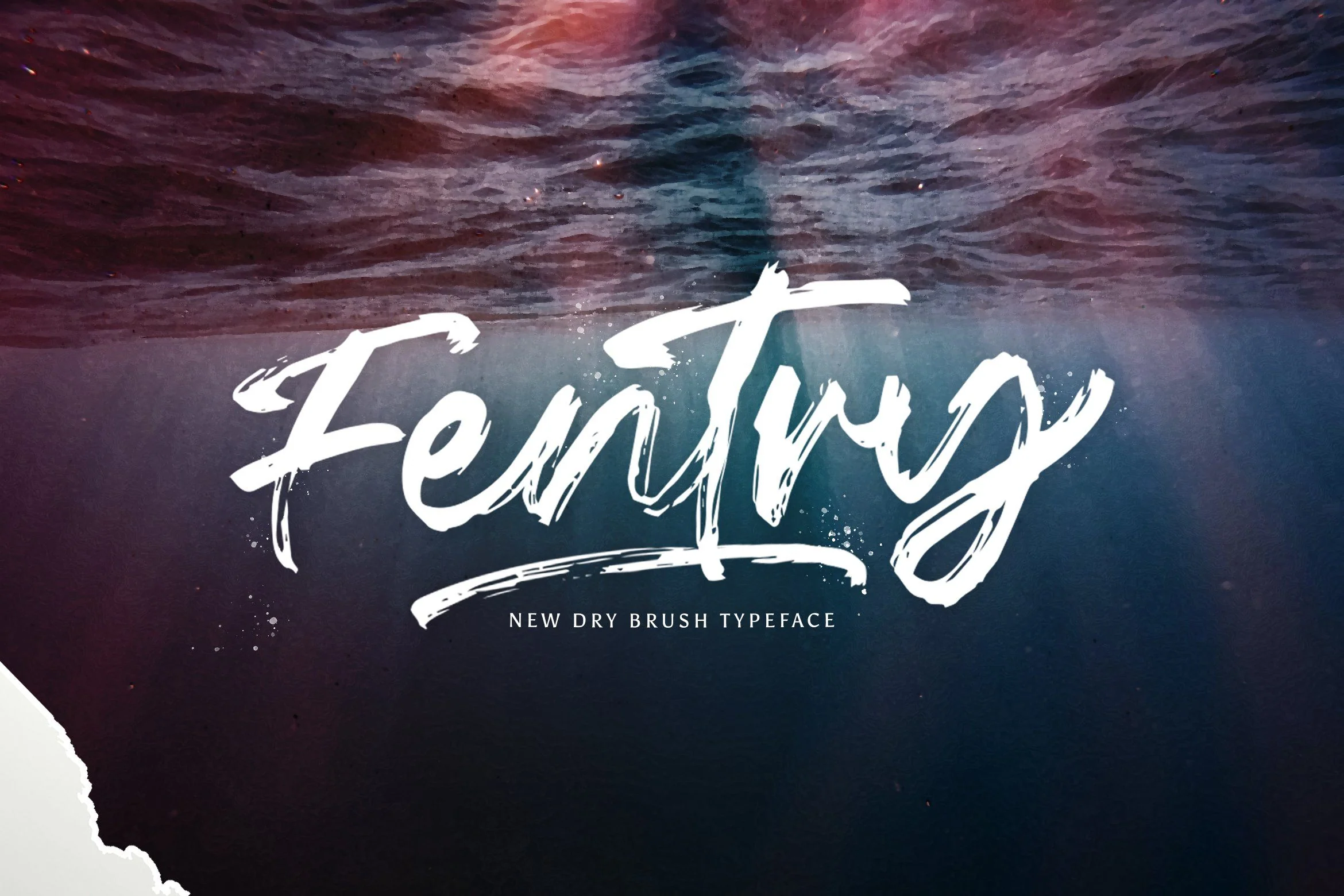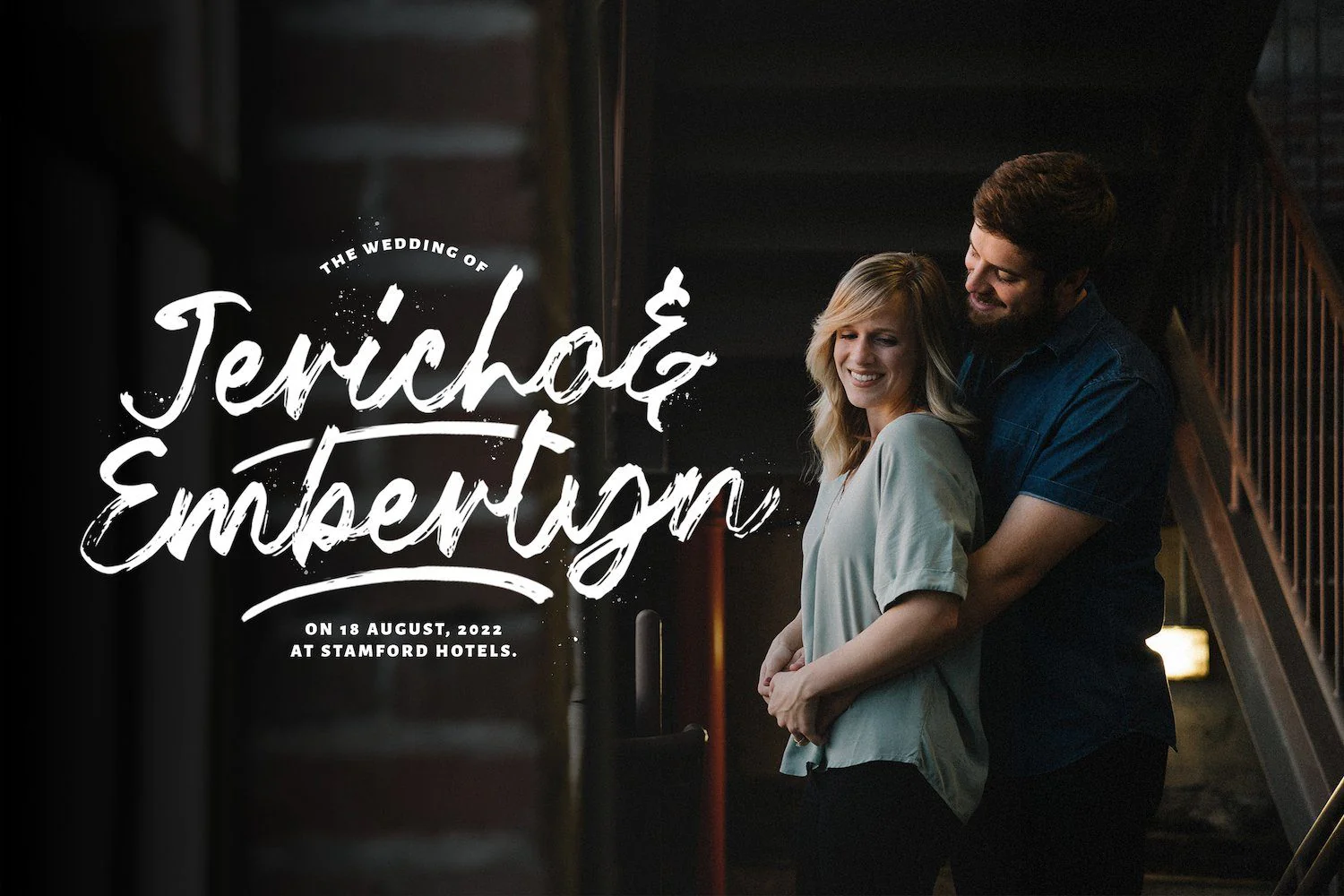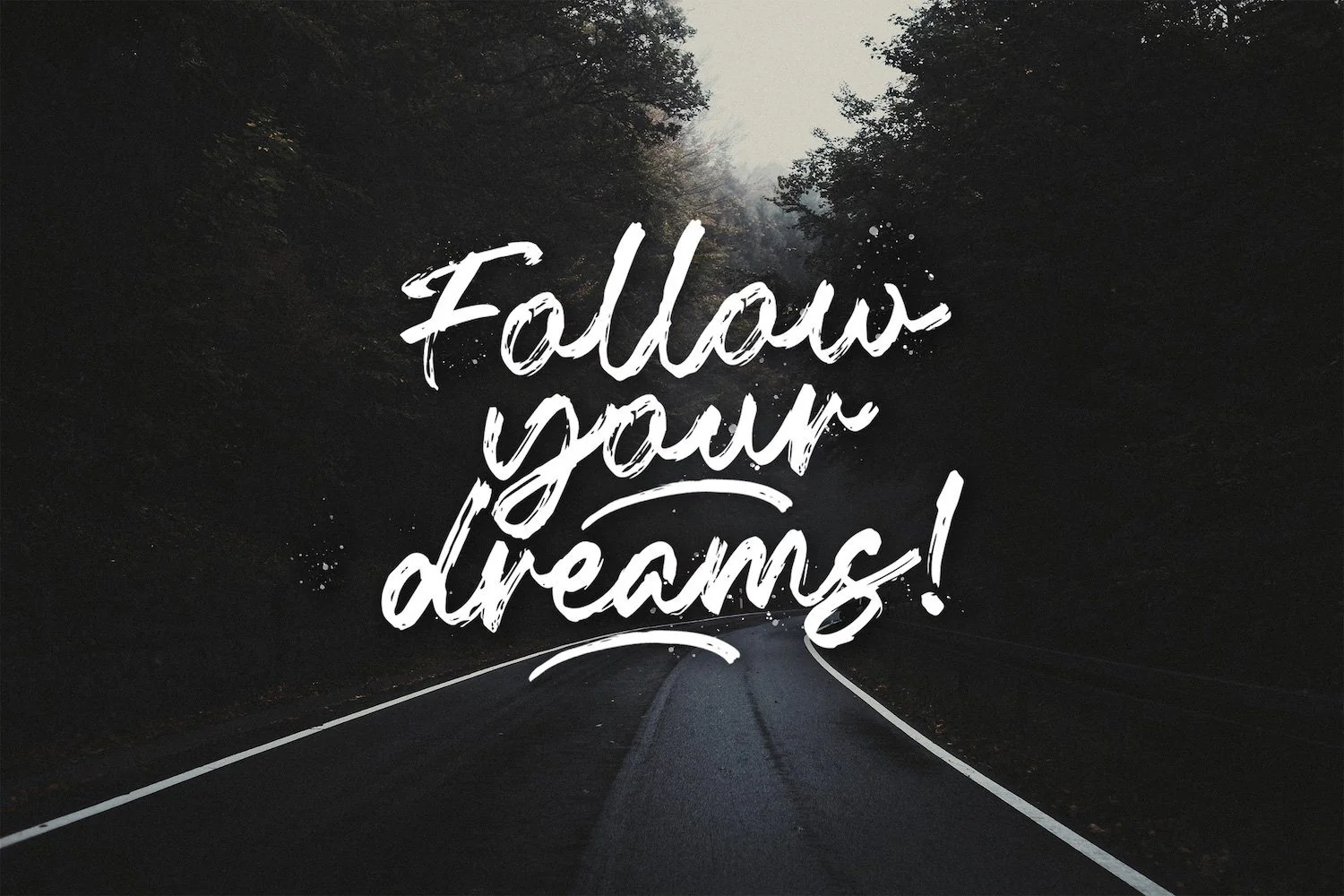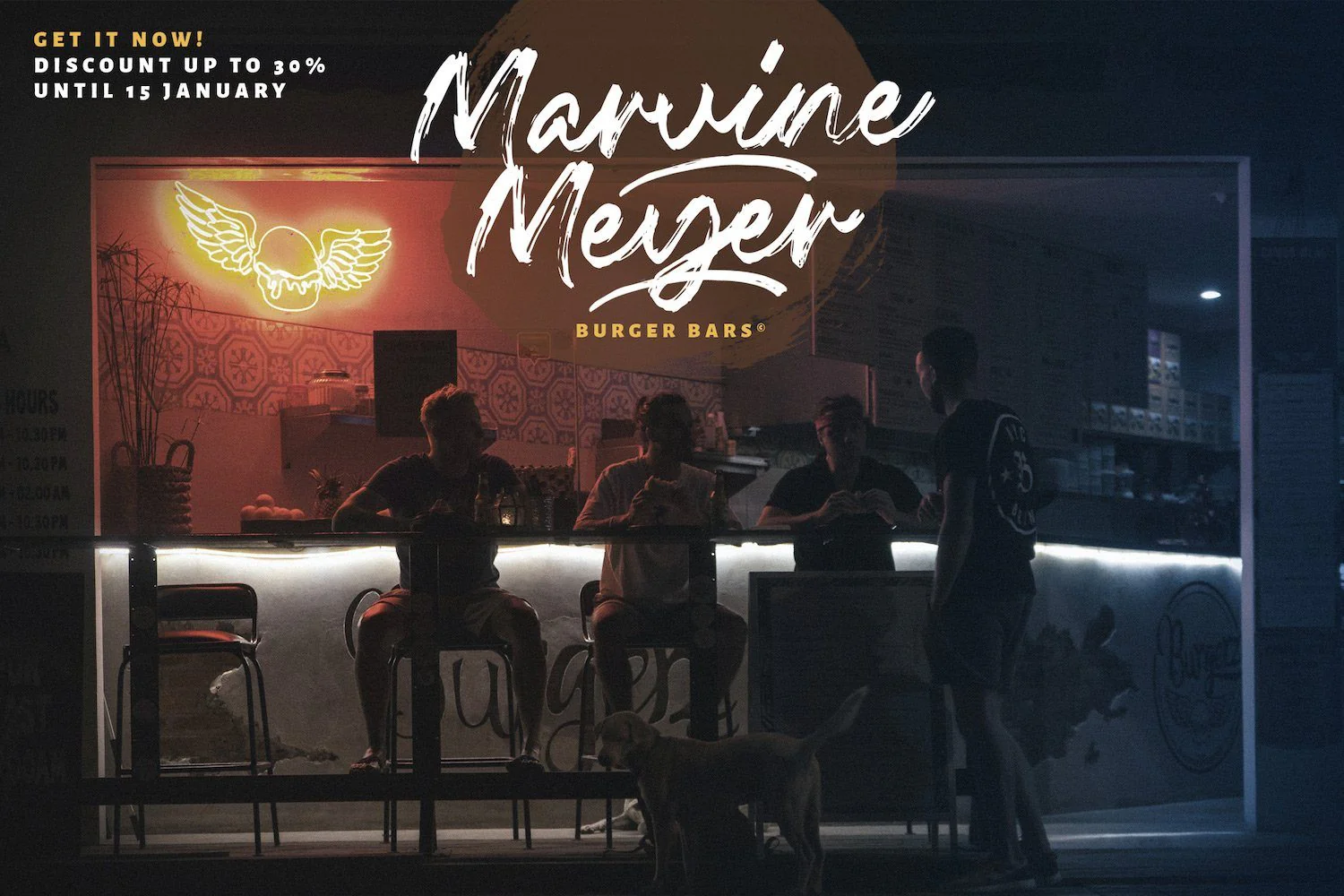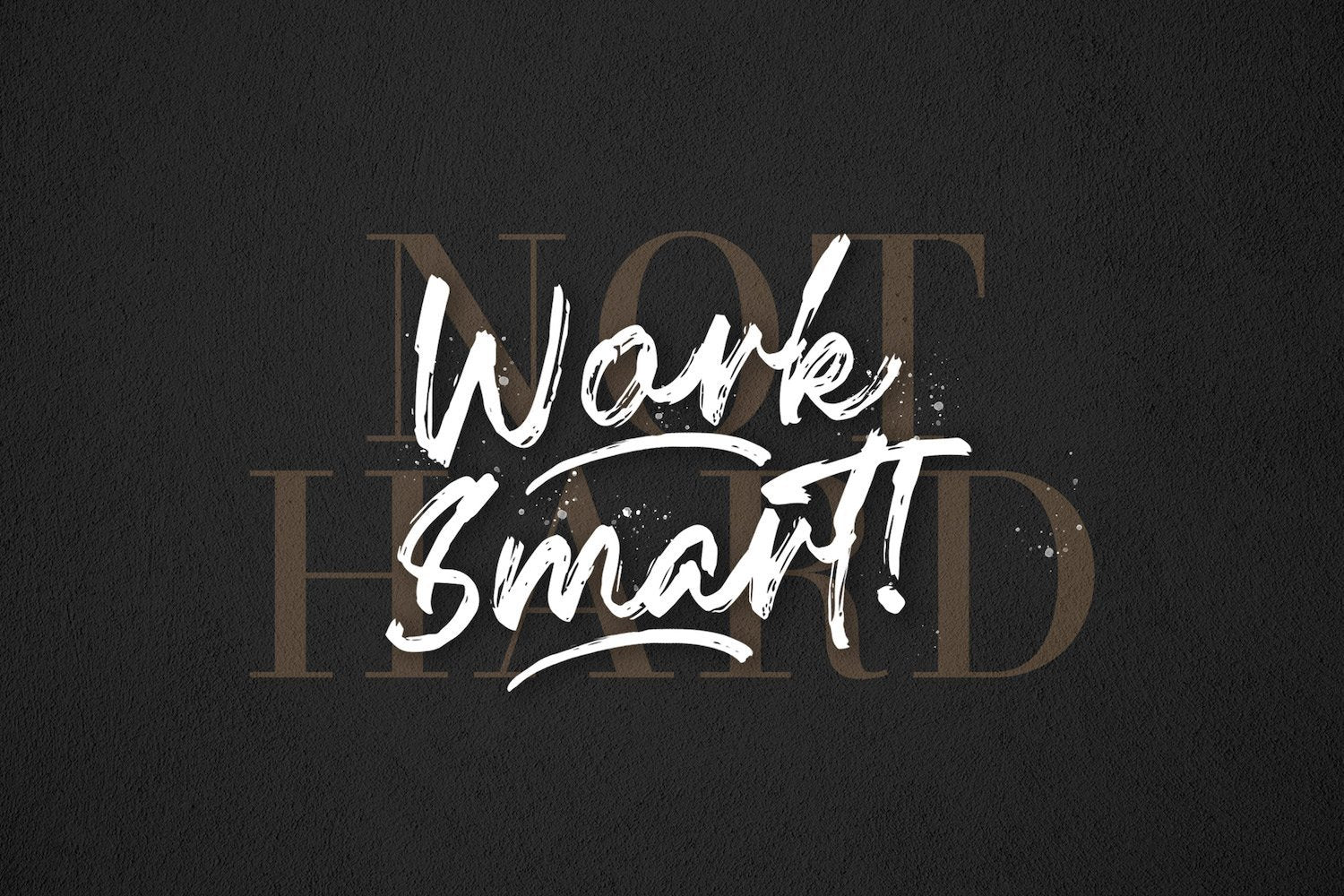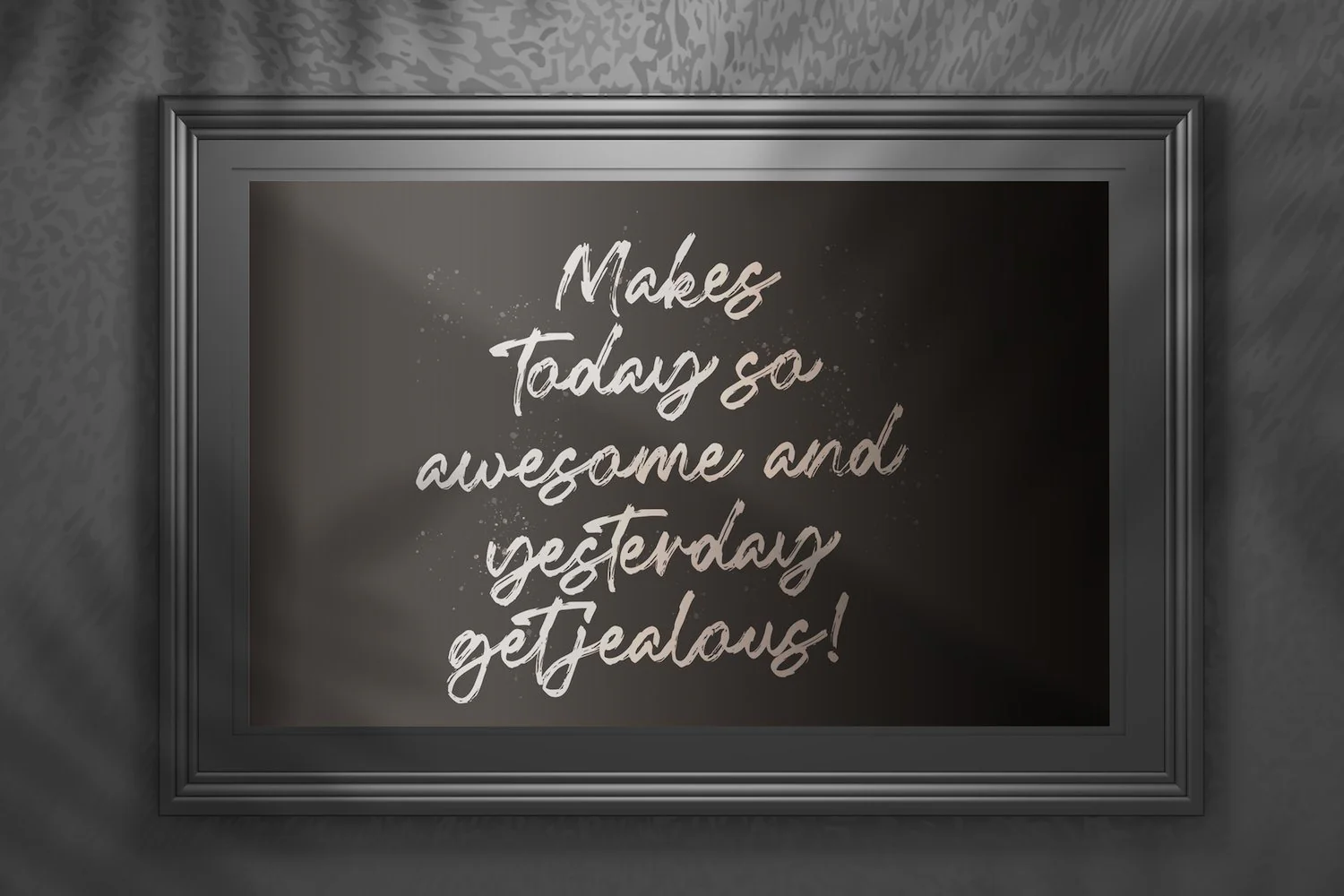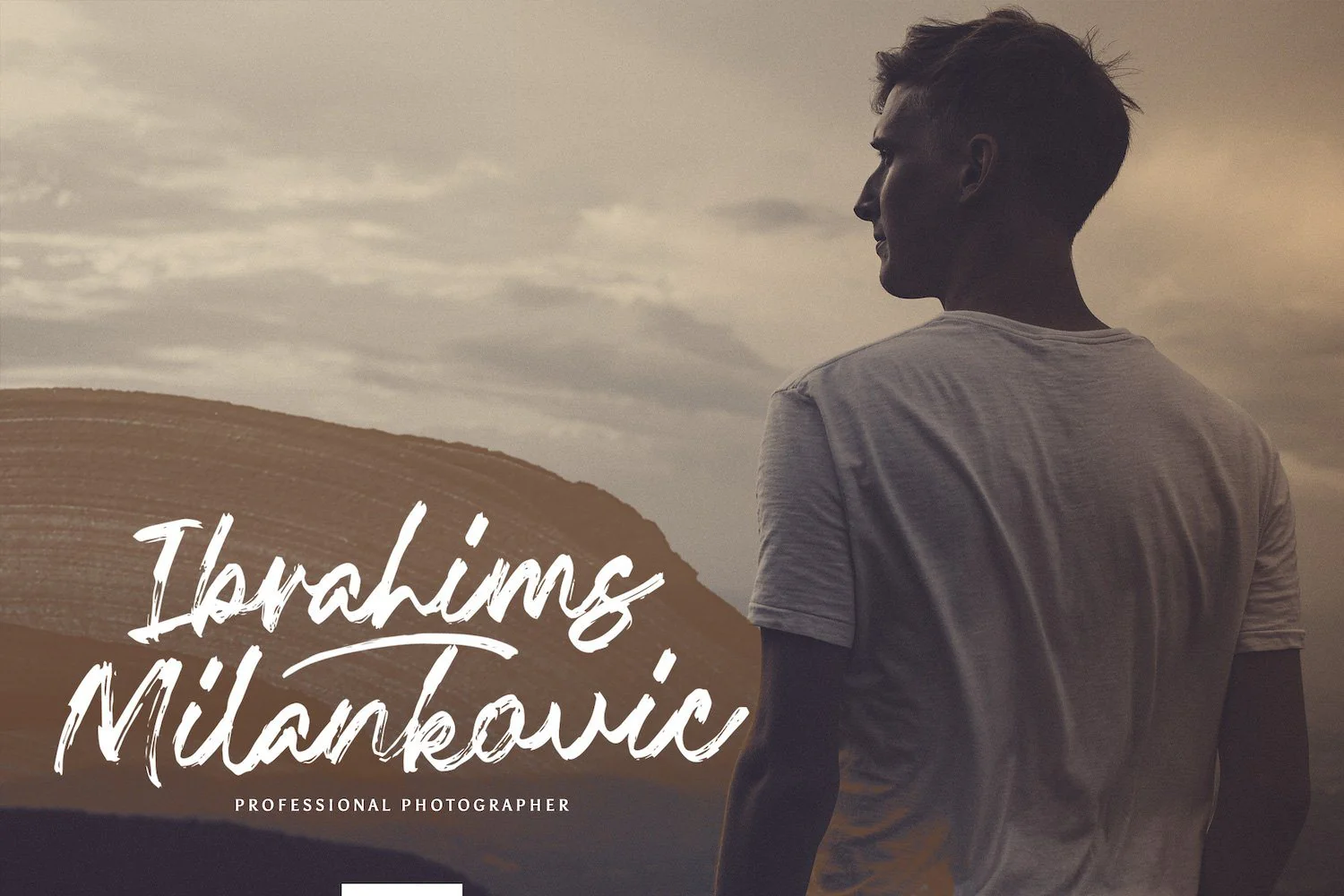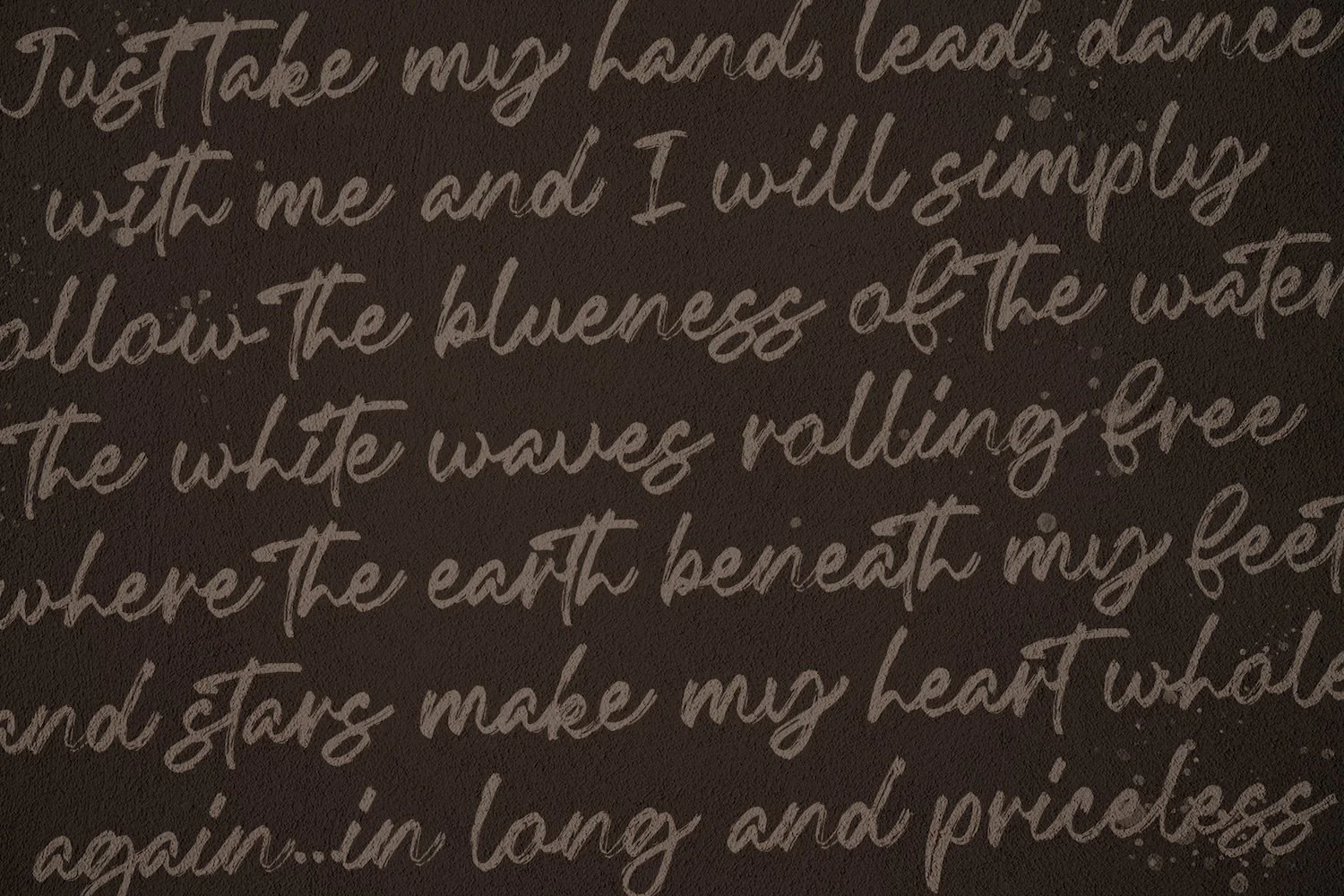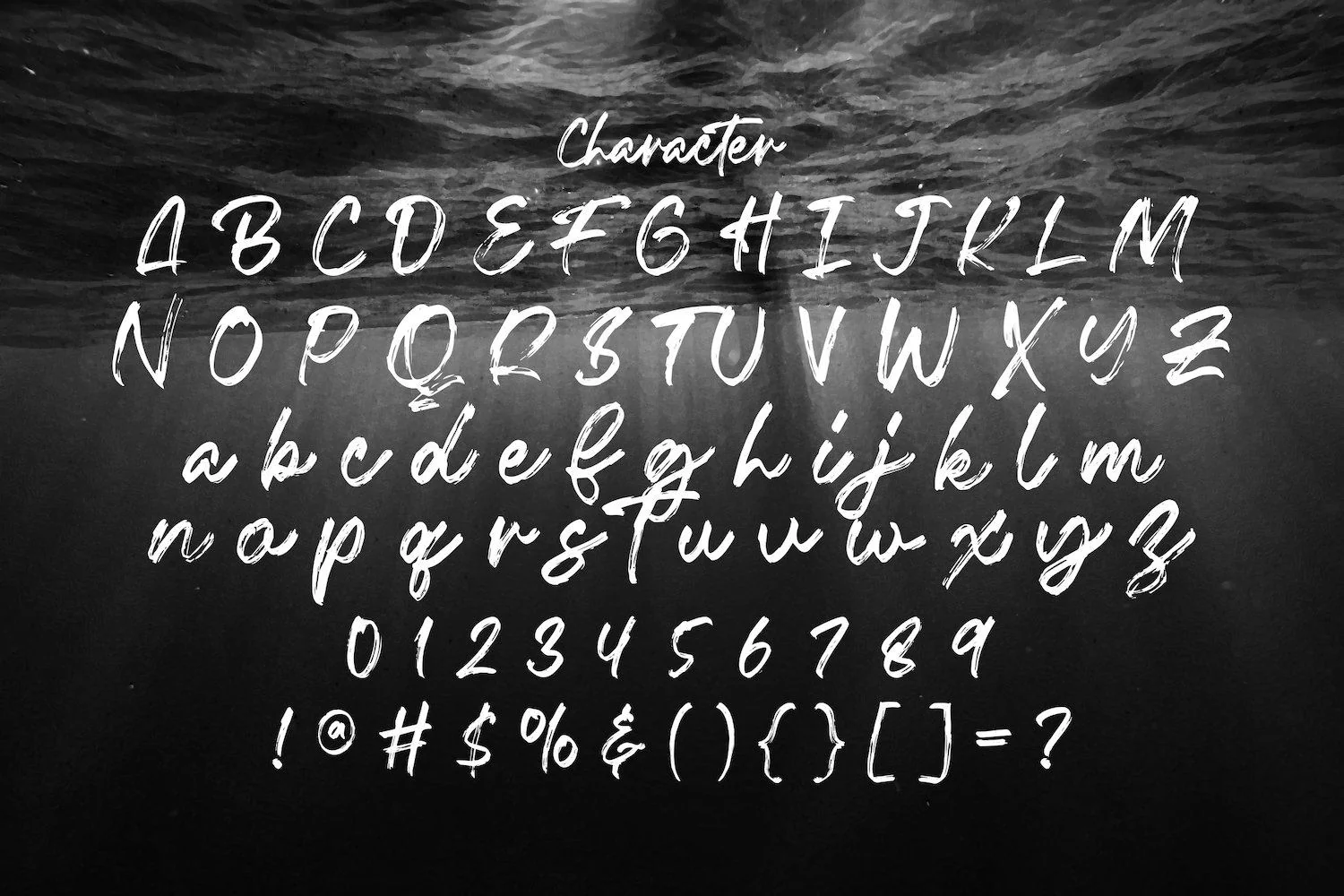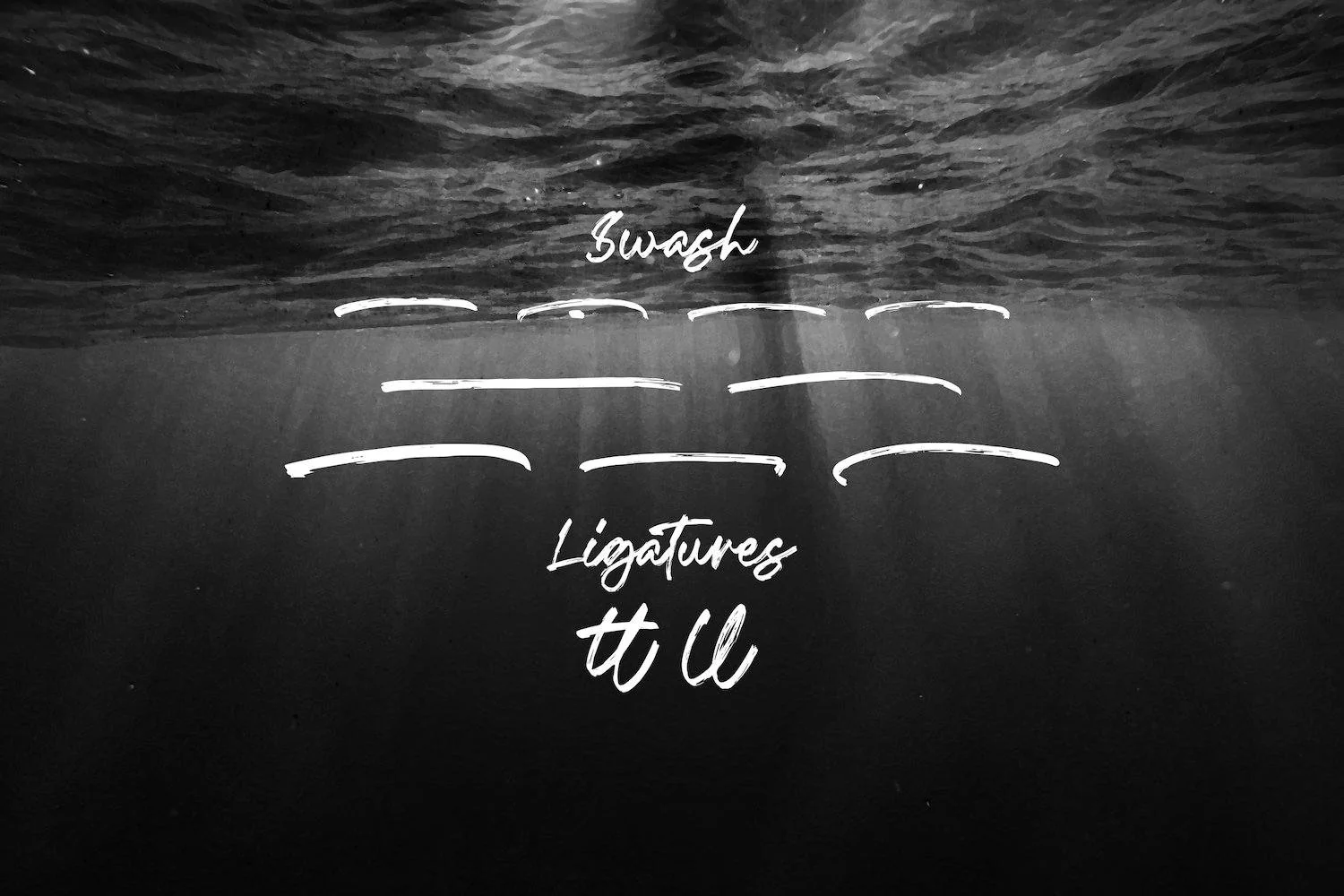
Fentry - Textured Brush Font
Introducing Fentry - Textured Brush Font
Fentry is a textured handbrush font. Get inspired by its unique and beautiful style and add it to your favorite designs!
Introducing Fentry - Textured Brush Font
Fentry is a textured handbrush font. Get inspired by its unique and beautiful style and add it to your favorite designs!